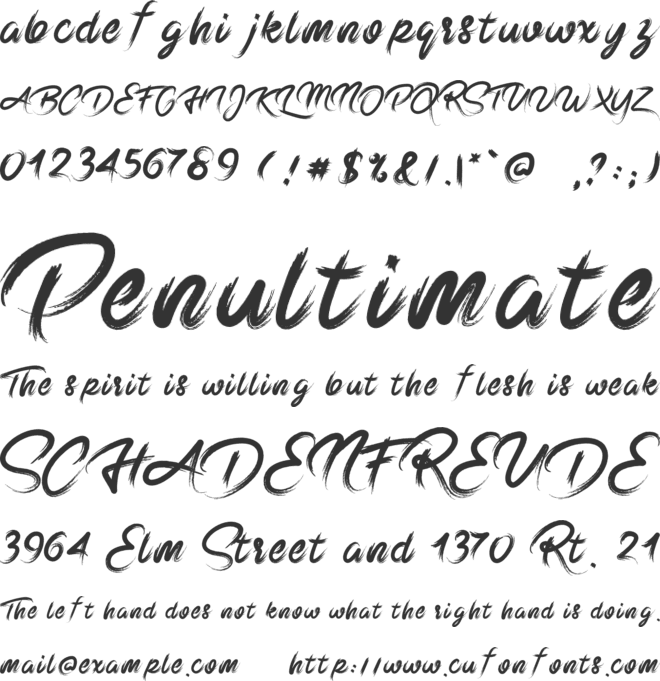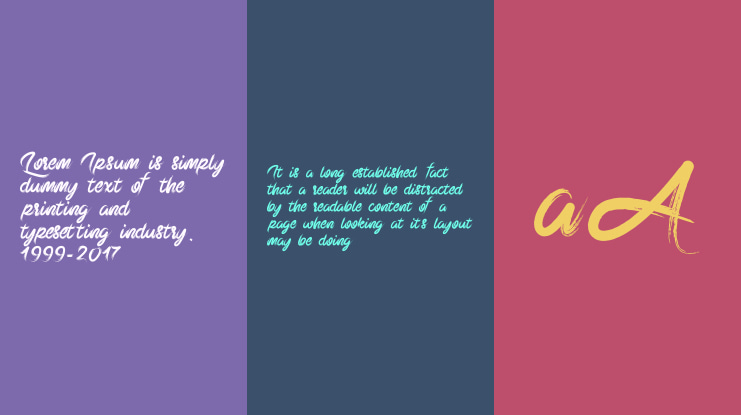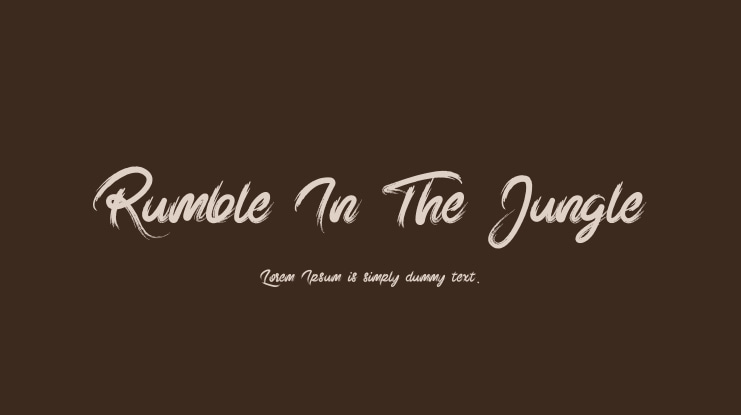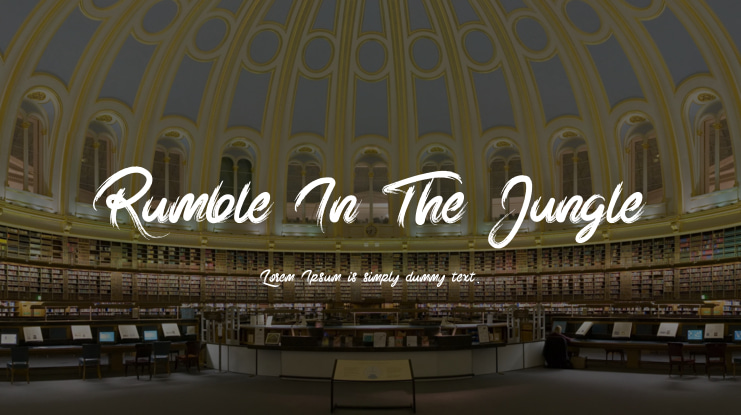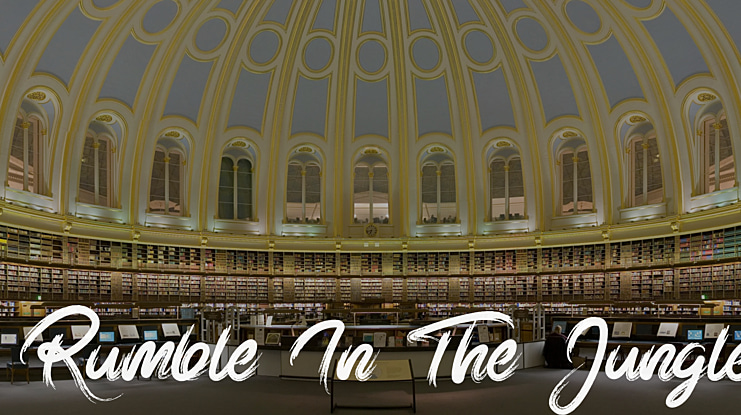
Rumble In The Jungle Font
Rumble In Jungle is a freestyle handwritten brush font. With a street urban style, youthful theme, and a sporty, masculine accent this font is perfect for displays, titles, logos, packaging, crafts, labels, T-shirts, hoodies, tote bags, posters, stickers, quotes, and any advertising that needs energetic typography.